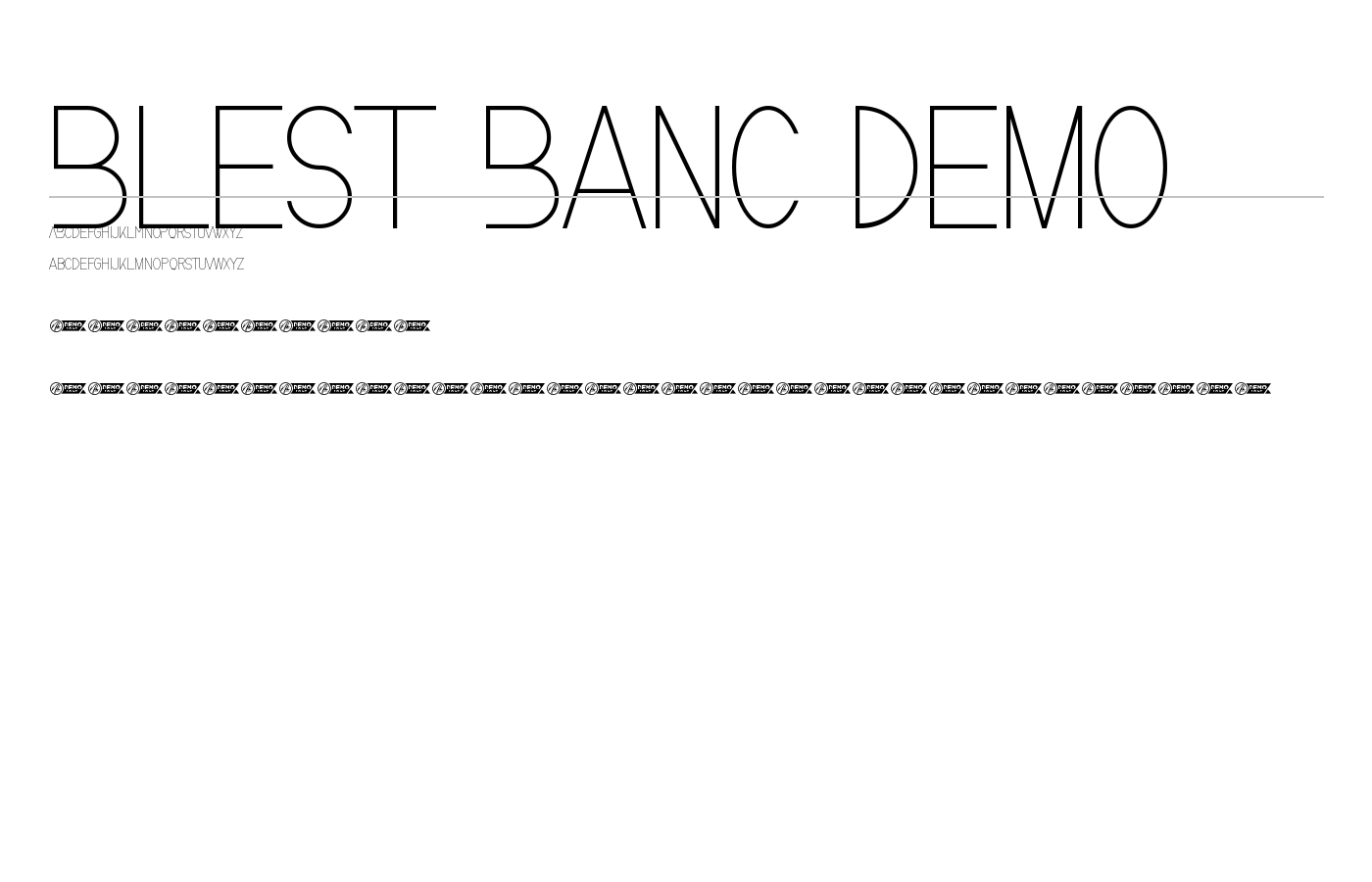
Blest Banc Demo is a sleek, ultra-light sans serif font with a modern, minimalist design and a distinctly geometric feel. Its tall, narrow letterforms with low contrast strokes and open shapes create an elegant and airy appearance, making it ideal for sophisticated branding, contemporary editorial layouts, and stylish headlines. This font works best where a refined, fashionable impression is desired without sacrificing clarity or readability.
Blest Banc Demo Font
About Blest Banc Demo Font